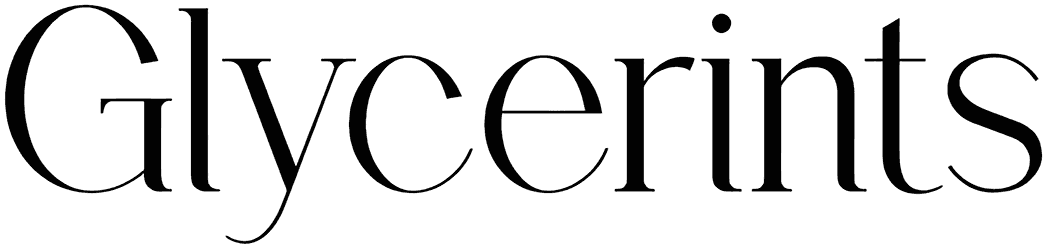
Glycerints Font
Capturing loads of luxury is what happens to your typography after it’s customized with a chic serif font like Glycerints. You’re going to need such a strong visual charm on multiple occasions, and the most important of them is when you’re branding.
Whenever you’re having trouble decorating your text with just enough elegance, Glycerints can take care of that for you with its fashionable style. That makes this classic font ideal for artistic Photo overlays, quotes, stylish business cards, etc.